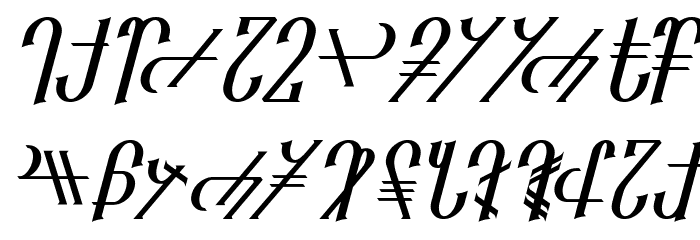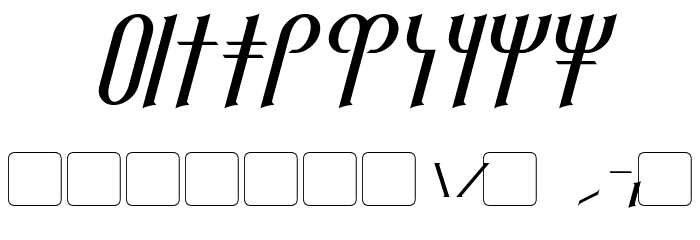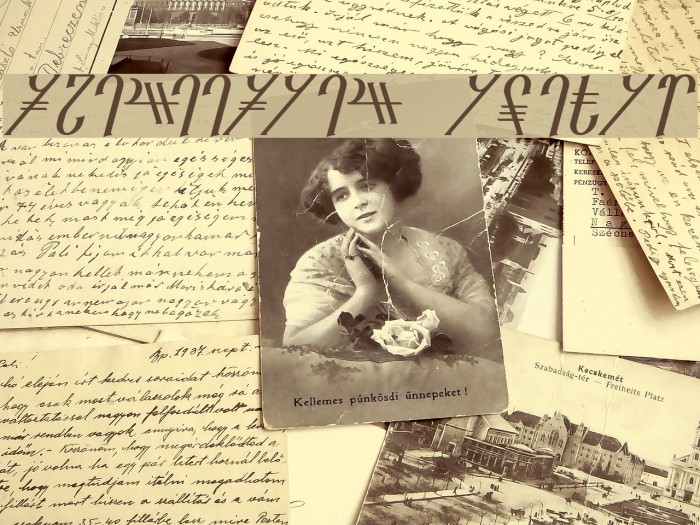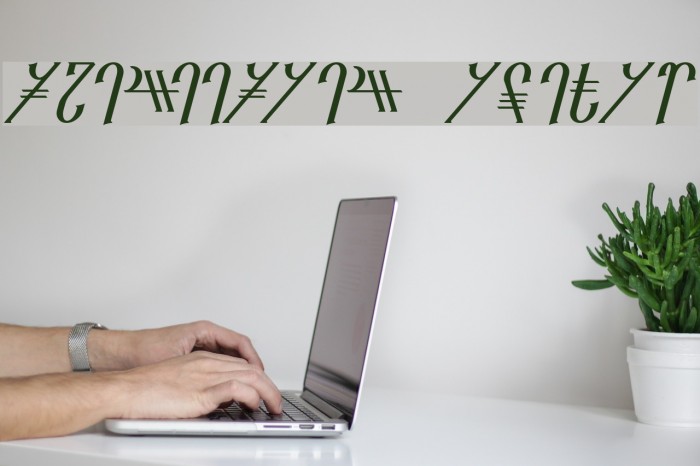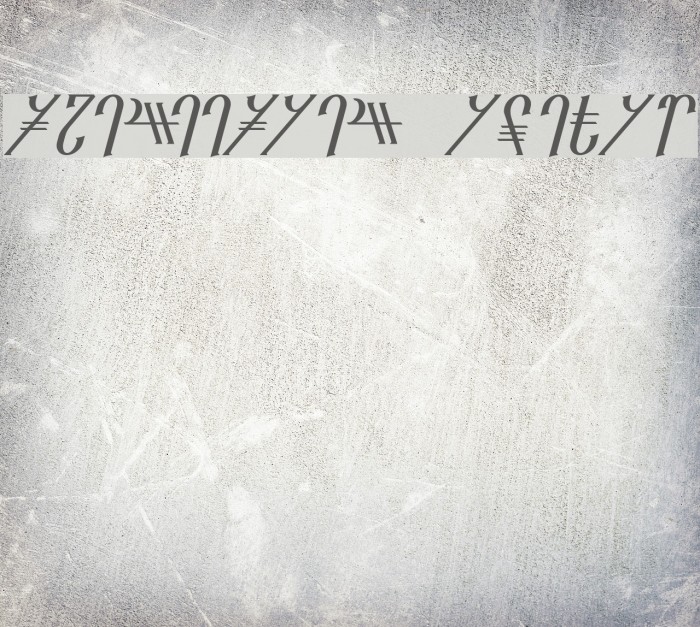
Reanaarian Italic Font
This font features a unique and decorative style with an italic slant, characterized by sharp, angular strokes and a flowing, cursive-like appearance. The letters are distinct with a high level of ornamentation, giving them an artistic and sophisticated look. The uppercase and lowercase letters maintain a consistent style, with exaggerated curves and pointed edges that create a sense of movement and elegance. The numbers and special characters follow the same design principles, ensuring uniformity across the typeface. This font is ideal for projects that require a touch of elegance and creativity, such as invitations, branding, or artistic designs.
A decorative italic font with sharp, angular strokes and a flowing, cursive-like style.
- Proposed Projects: Ideal for invitations, branding, artistic designs, and any project requiring elegance and creativity.
- Use Case: Headlines, Logos, Artistic designs